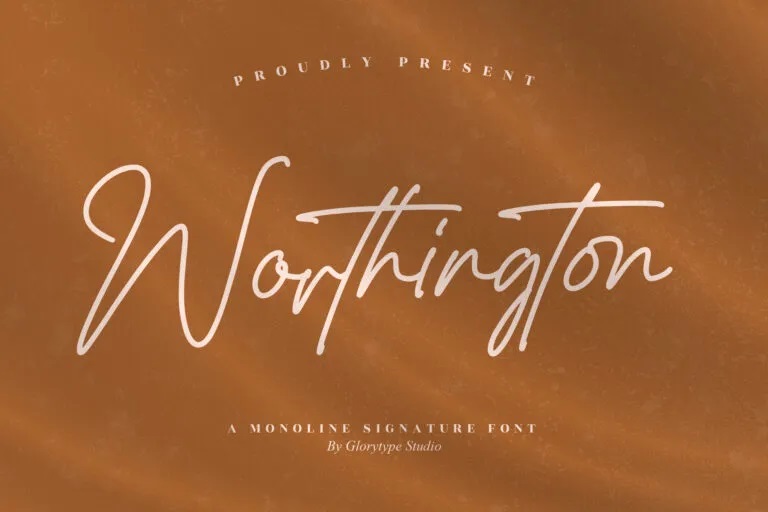
Worthington Font
Worthington’s modern monoline strokes lend itself well to a variety of design applications. From minimal logos requiring legibility to invitations demanding warmth, this versatile script is up to any task. Whether bringing a homey feel to mugs or lending sophistication to book covers, Worthington offers the right touch. Its adaptability allows everything from stark product packaging to joyful shopping bags and indoor signs to take on new life. Pairing balanced thickness with gentle loops, Worthington signatures beautifully headline both formal name cards and casual posters alike.
Worthington Monoline Signature Font